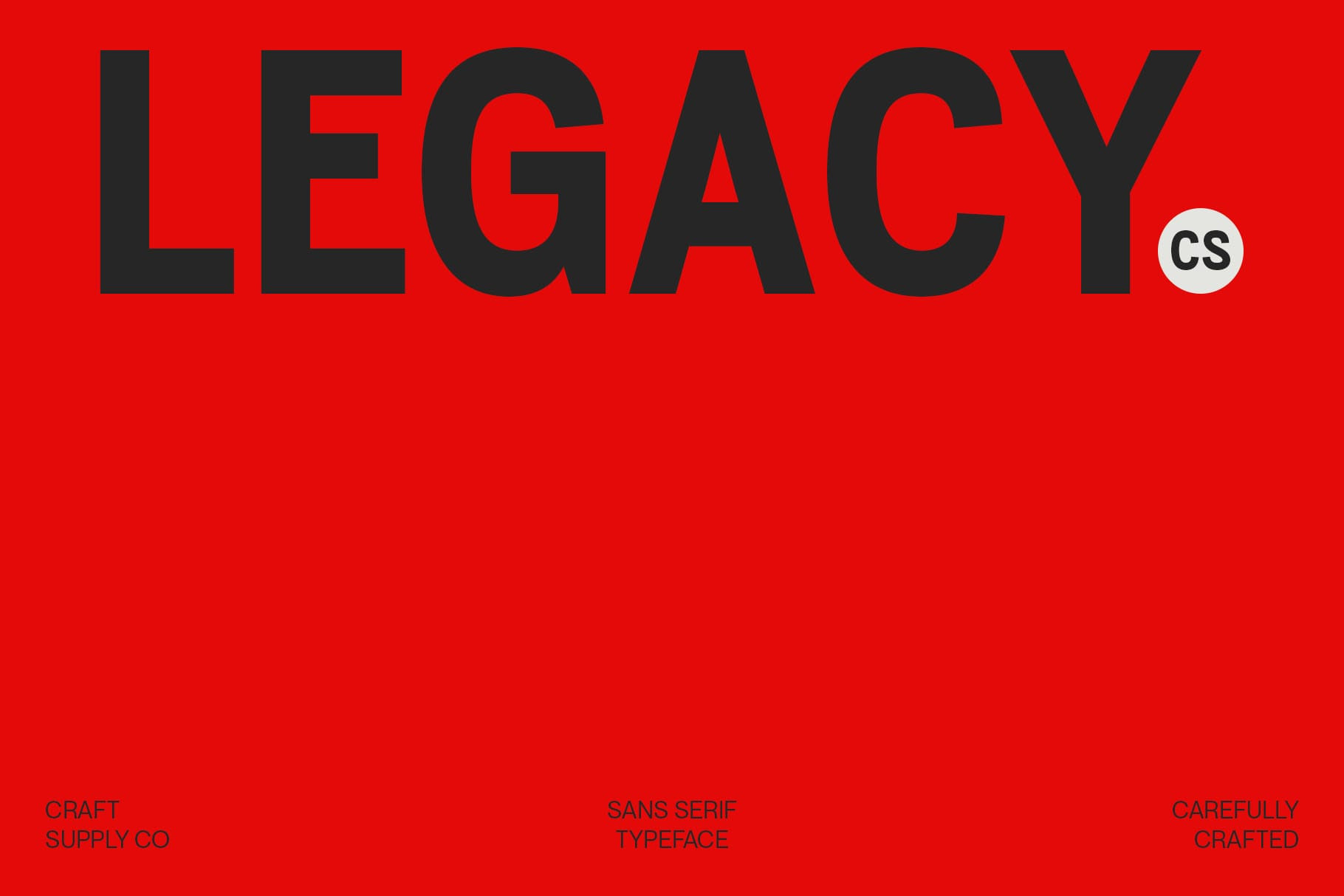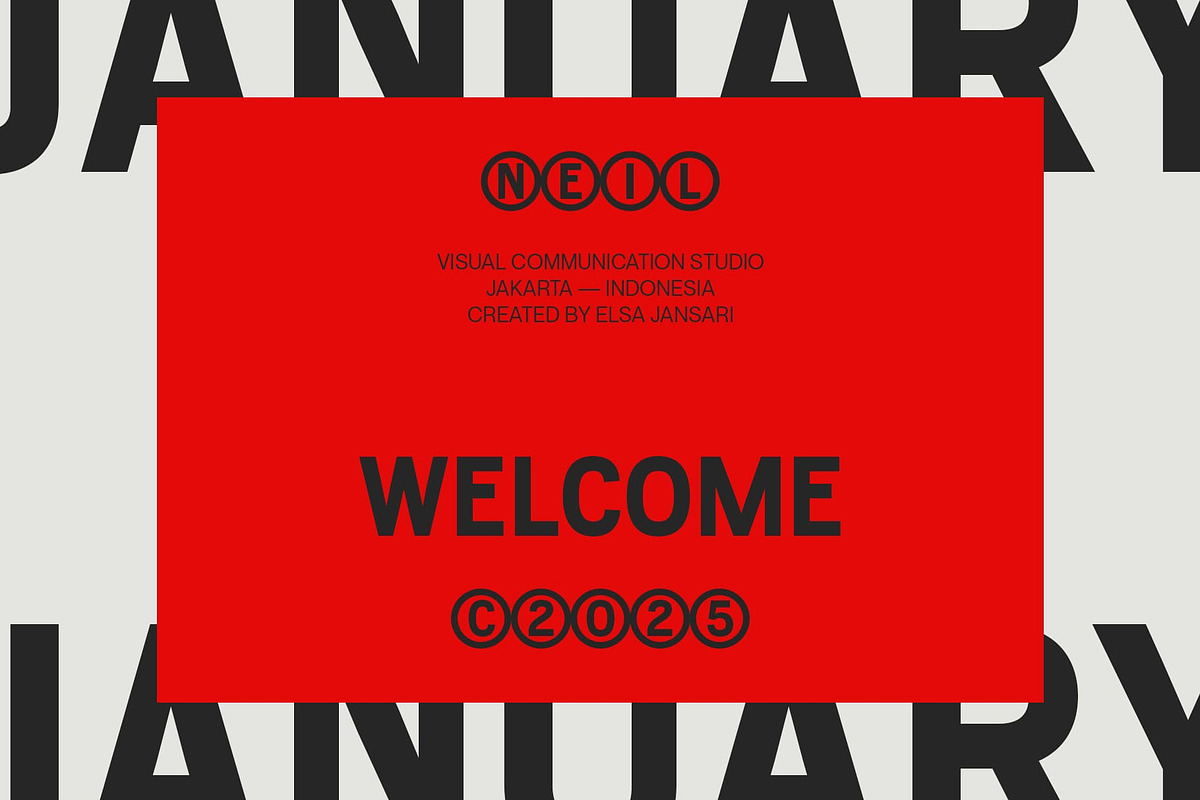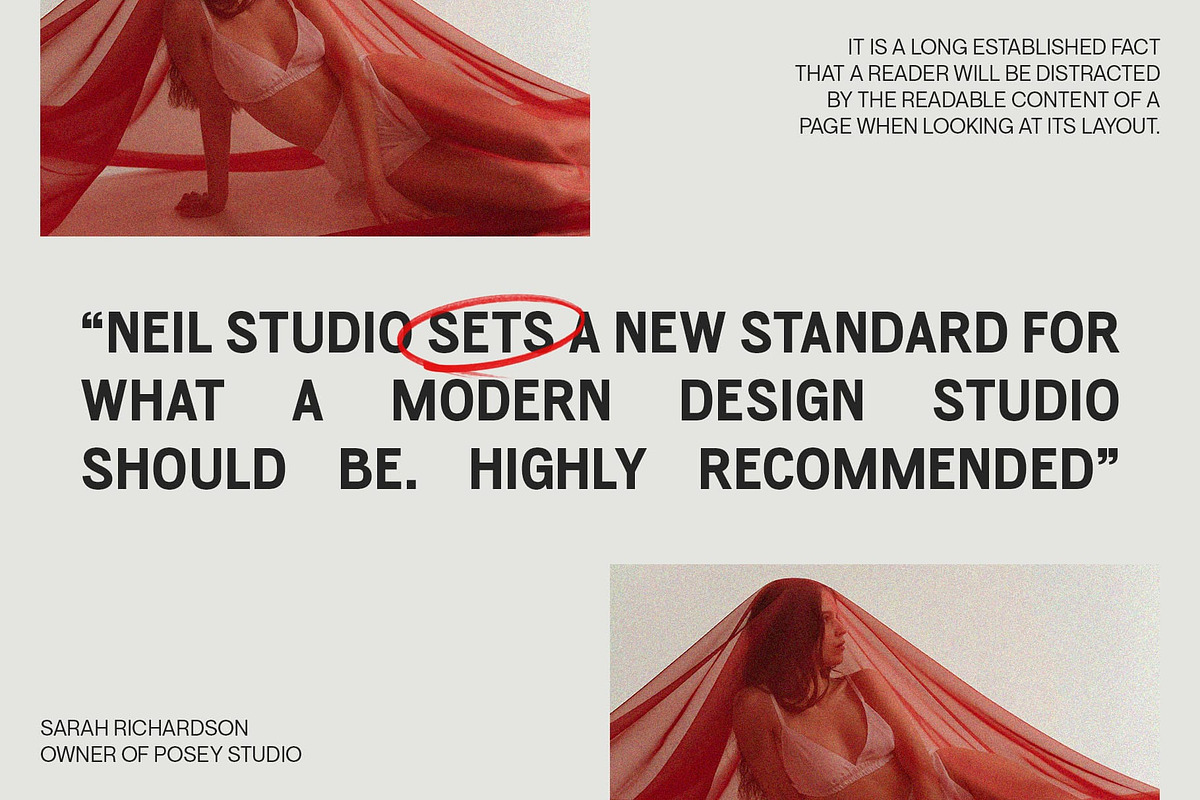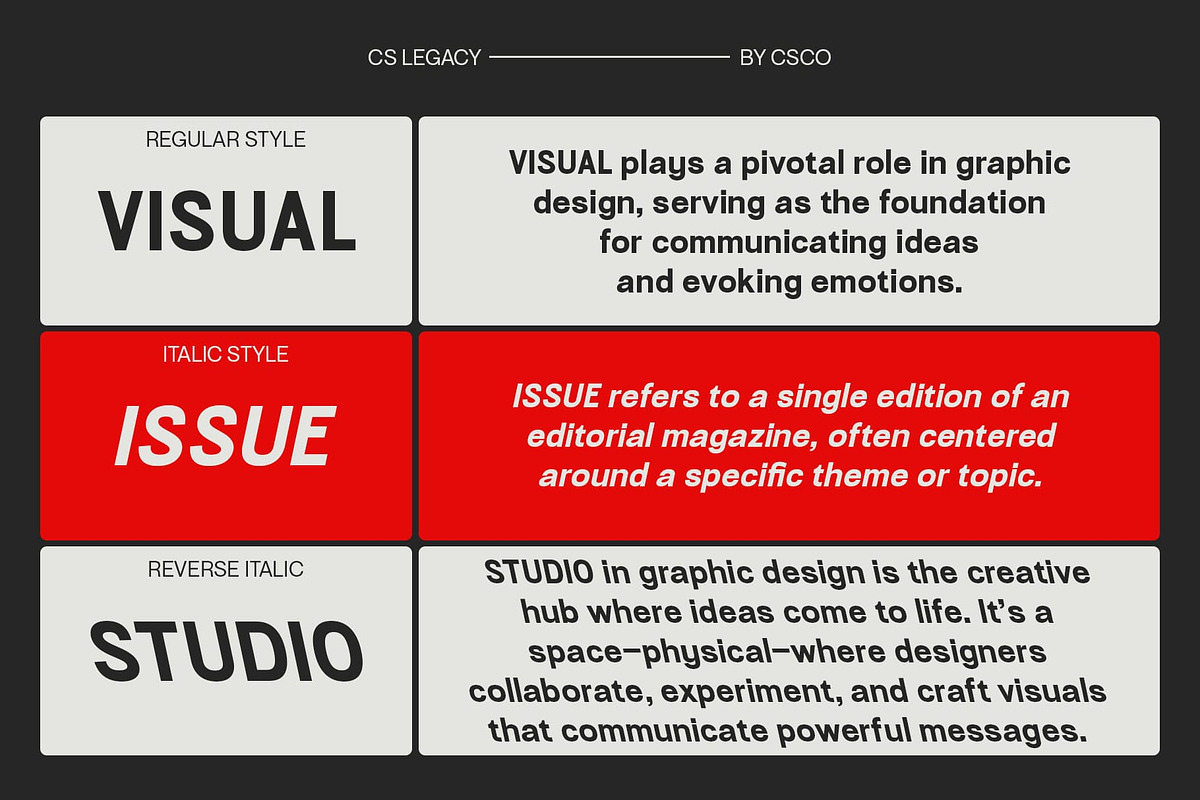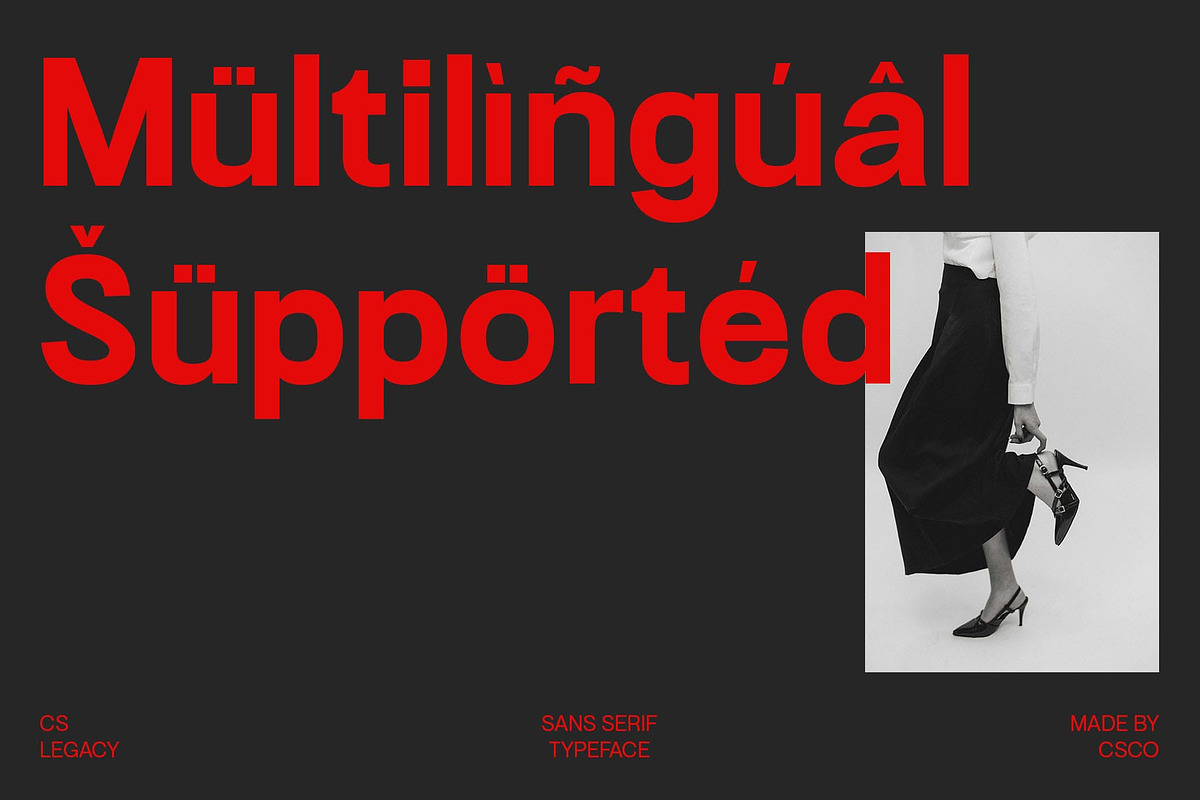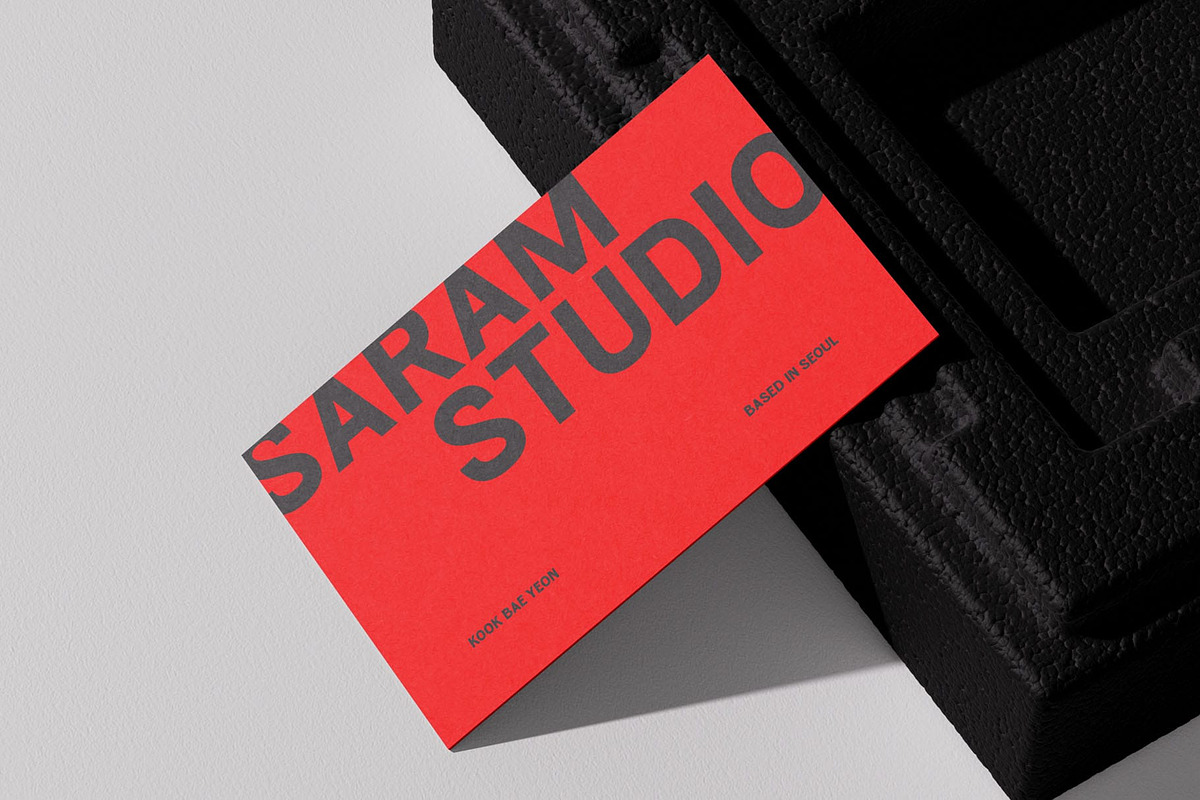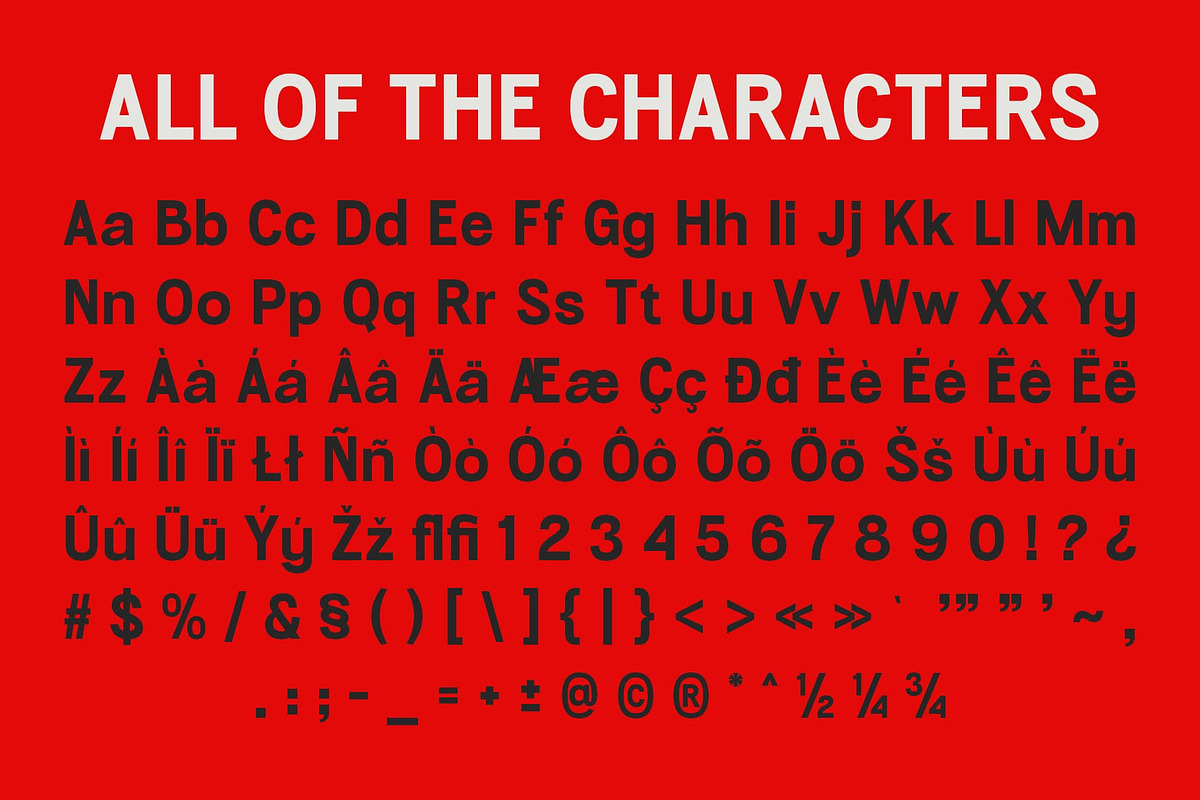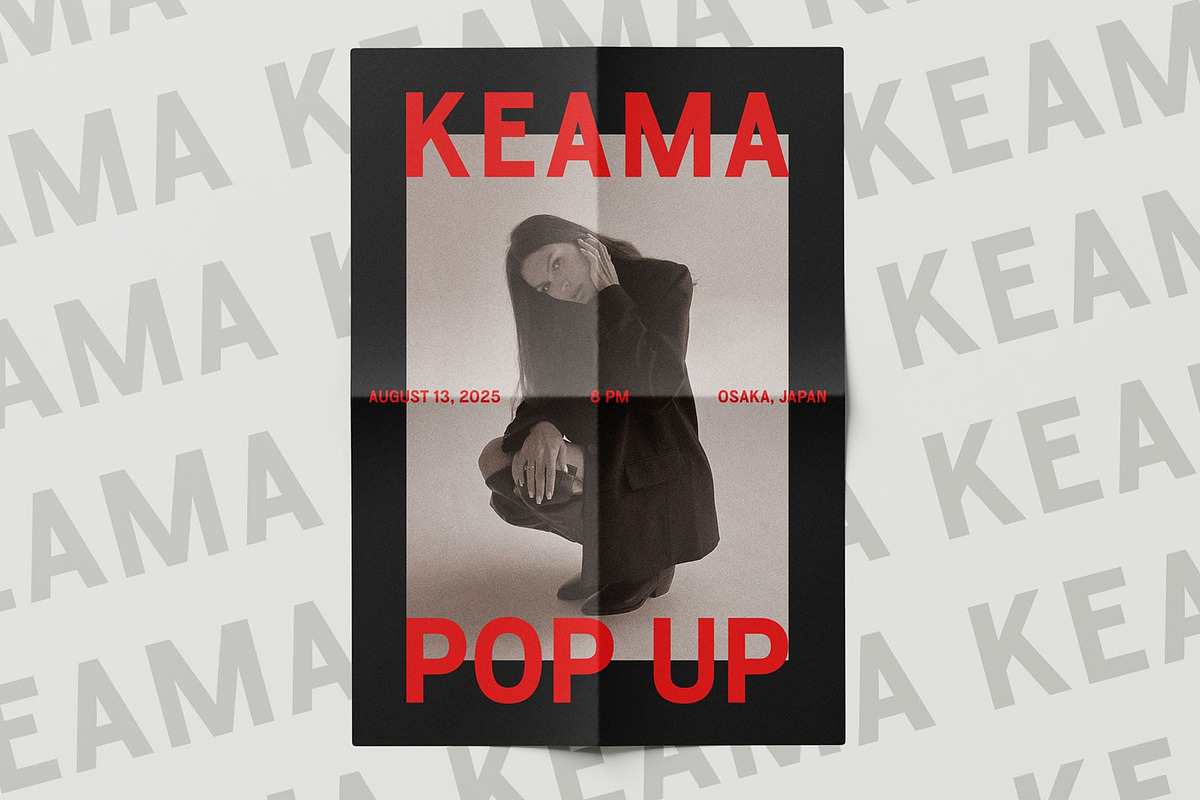
CS Legacy – Bold Font
CS Legacy – Bold Font: Modern Sans-Serif with Strong Impact
Bold & Professional Design CS Legacy is a modern sans-serif font with a bold and contemporary shape that commands attention. Featuring clean, strong lines, this font creates a powerful, professional impression, making it perfect for designs that require clarity and strength. Its minimalist design offers a solid, refined look that balances both simplicity and elegance. The font’s bold character ensures it stands out in headlines, branding materials, and any visual communication that needs to make a lasting impact.
Versatile for Branding & Marketing Designed to make a statement, CS Legacy excels in various professional applications such as logos, promotional materials, and websites. Its versatile design makes it suitable for corporate identity, product packaging, social media campaigns, and digital presence. Whether creating a cutting-edge brand, marketing campaign, or sleek web design, this font elevates any project by adding an air of sophistication, while remaining approachable and highly legible in both large and small scales.
Sophistication with Simplicity CS Legacy strikes the perfect balance between modern simplicity and enduring strength. It is ideal for brands that aim to project credibility, sophistication, and a strong visual identity. The clean lines and bold structure give a timeless feel, while its contemporary design ensures it is relevant in today’s design landscape.
- CS Legacy Regular
- CS Legacy Italic
- CS Legacy Reverse Italic